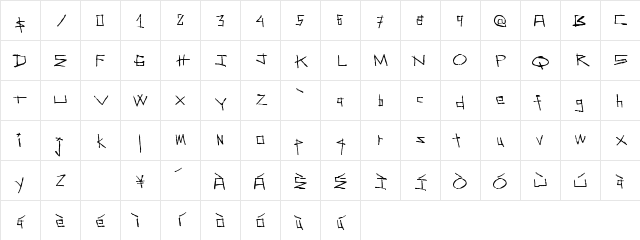
SecondAvenue Regular
Foundry: Xerographer Fonts
Designer: Xerographer Fonts Max Infeld
Design Context for SecondAvenue
SecondAvenue is a composed and adaptable typeface that performs quietly and consistently across a wide range of design contexts. Its narrow stance lets it pack a punch even in space-constrained designs.